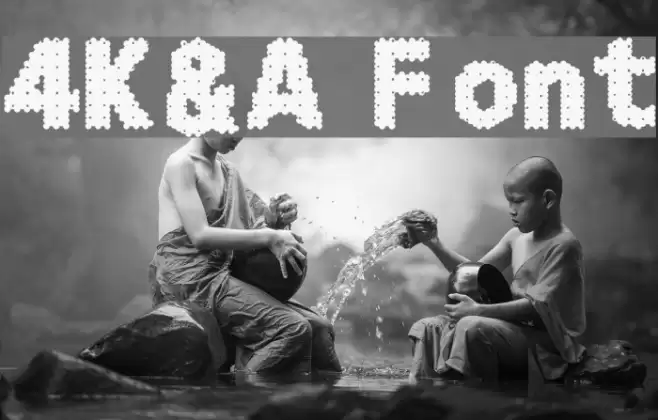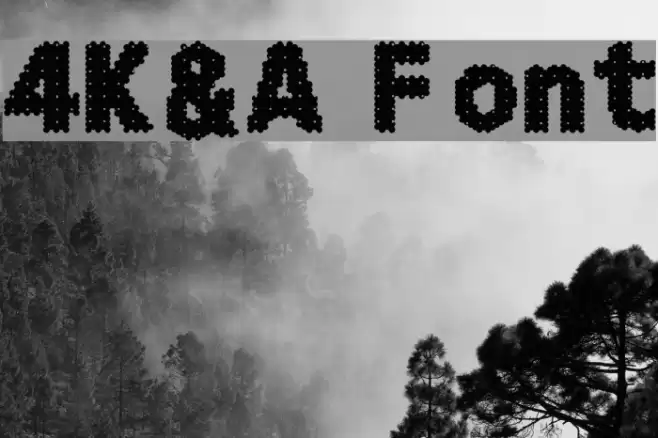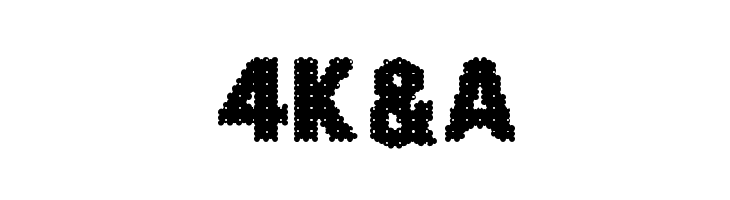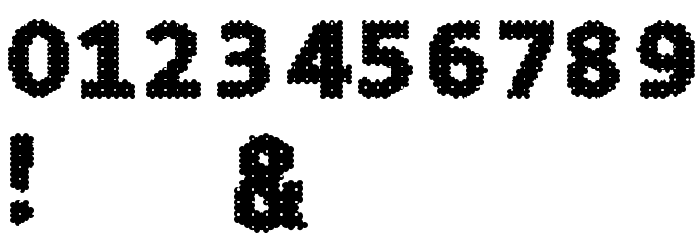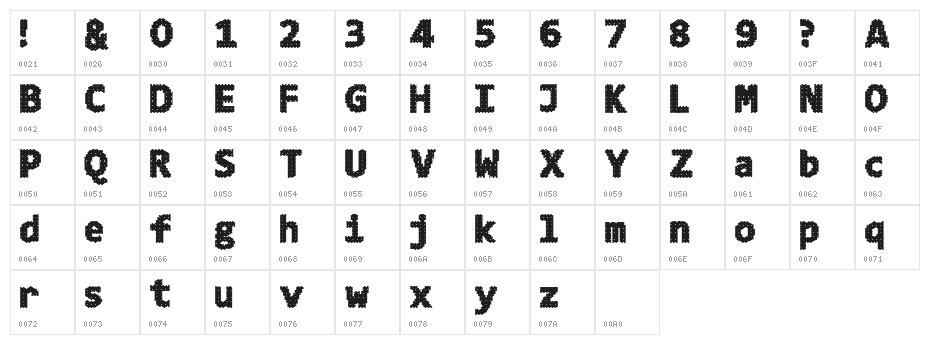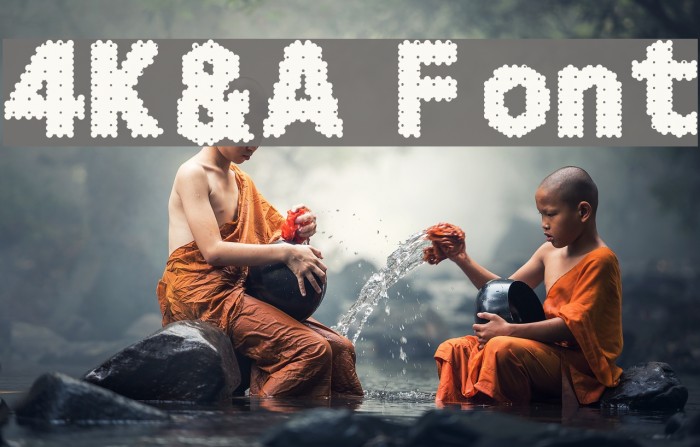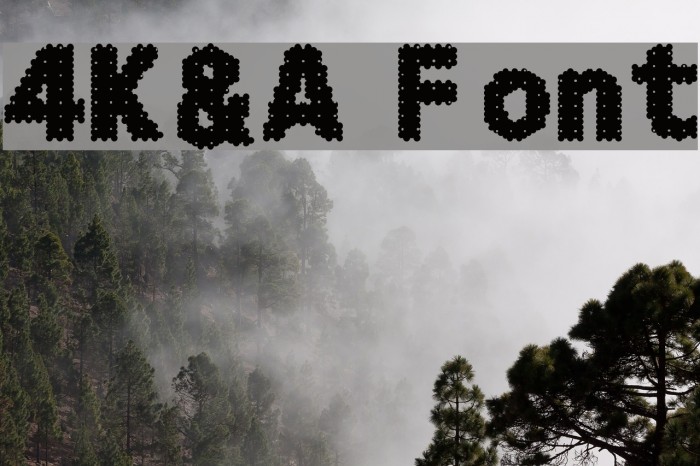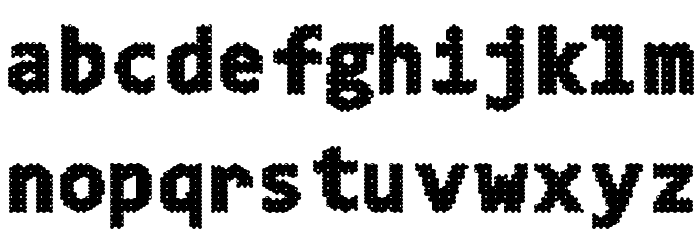
4K&A Font
4K&A Description
This font features a unique, playful design with a dotted texture that gives it a distinctive appearance. Each character is composed of small, evenly spaced dots, creating a cohesive and visually engaging style. The uppercase and lowercase letters maintain a consistent weight and structure, ensuring readability while adding a touch of whimsy. The numbers and special characters follow the same dotted pattern, making them easily recognizable and harmonious with the alphabetic characters. This font's playful nature makes it suitable for creative projects that require a fun and informal touch.
A playful, dotted font with a unique and whimsical style from Decorative fonts.